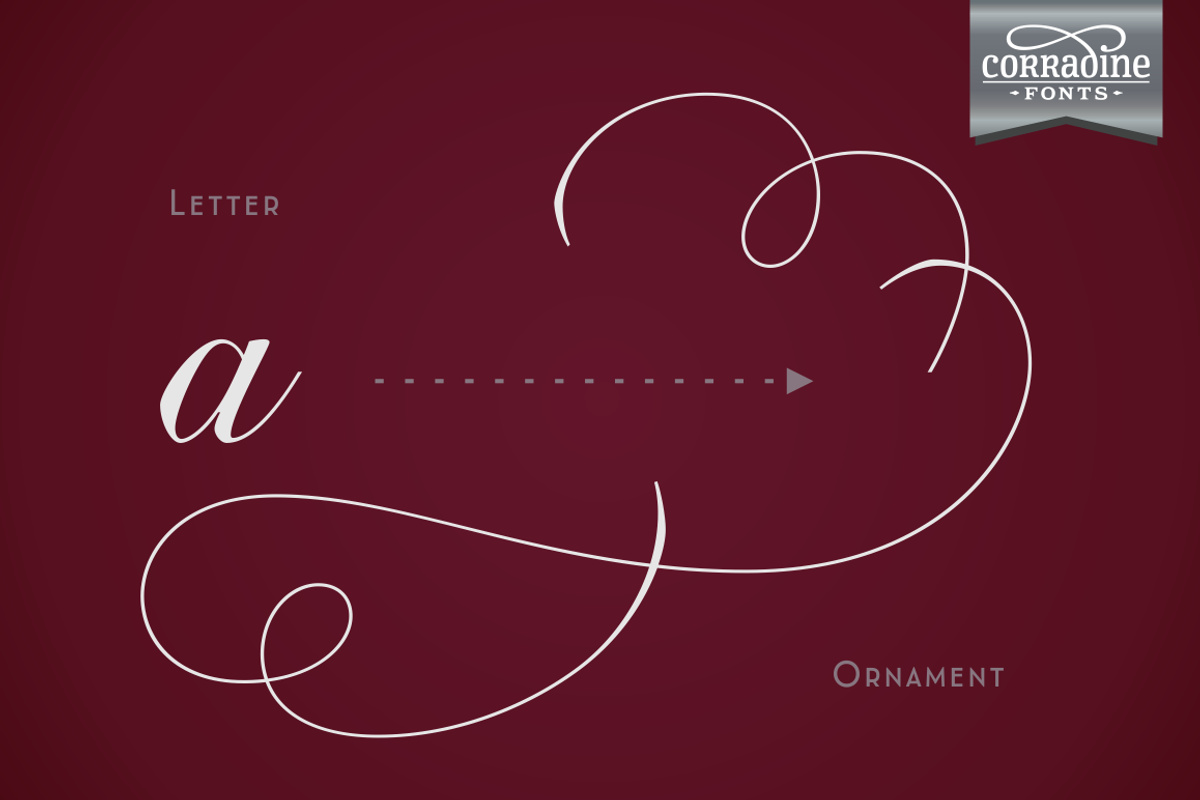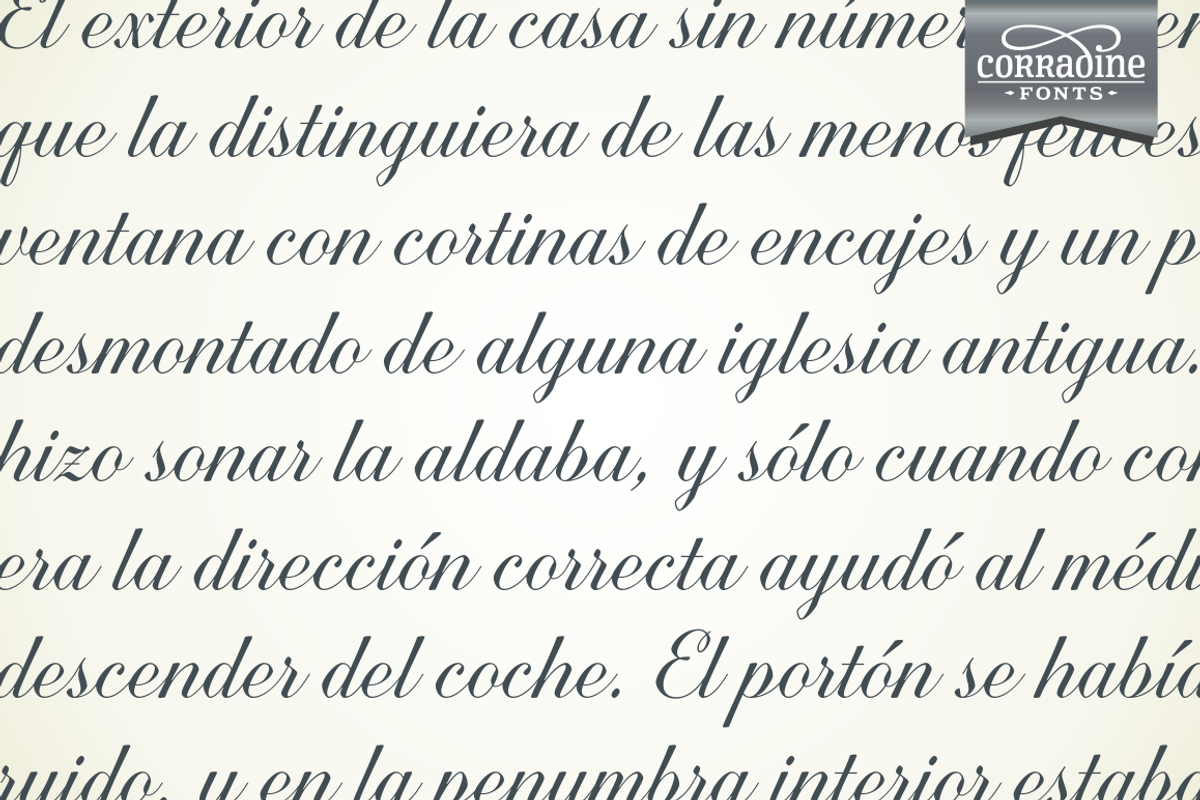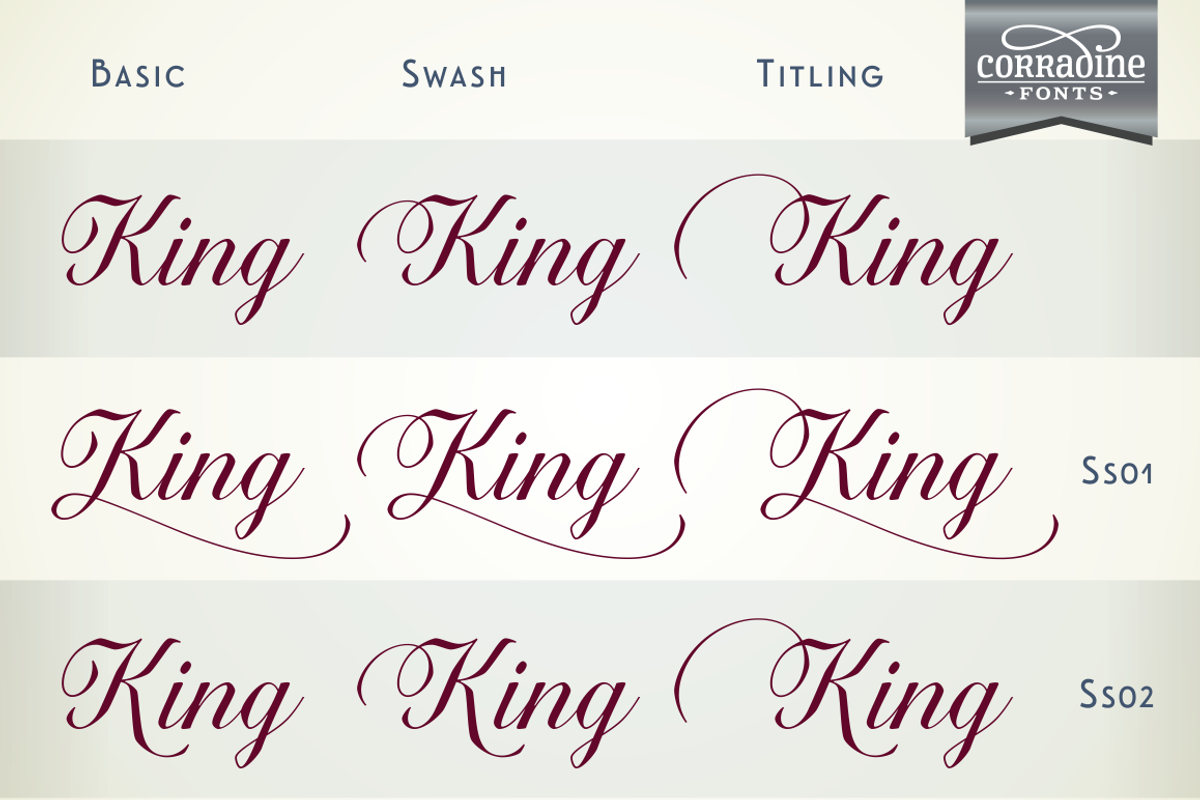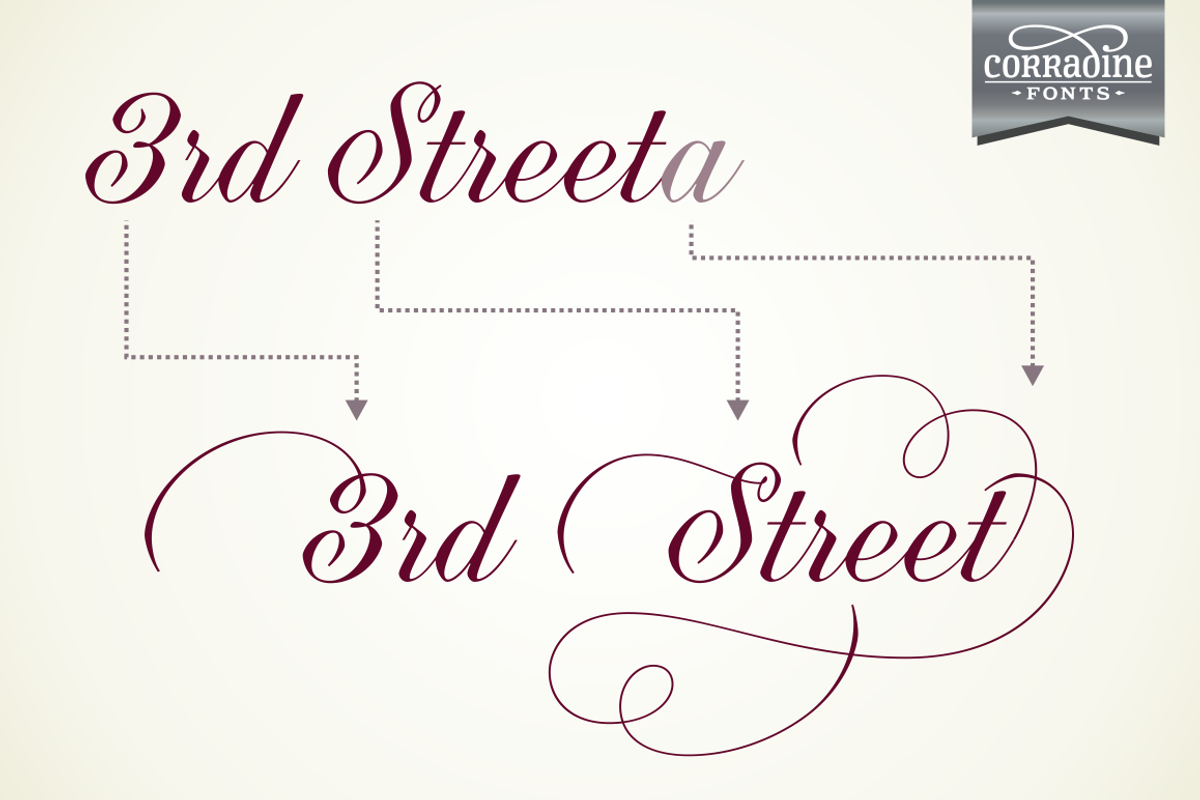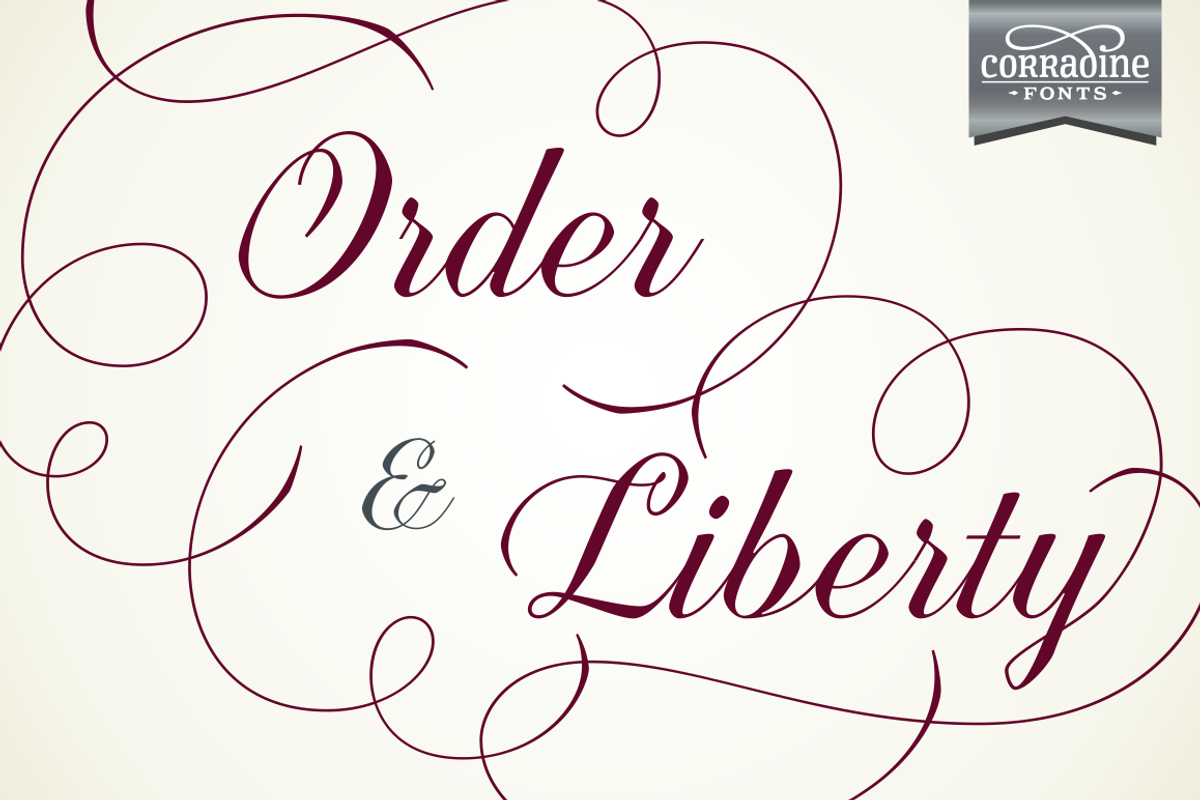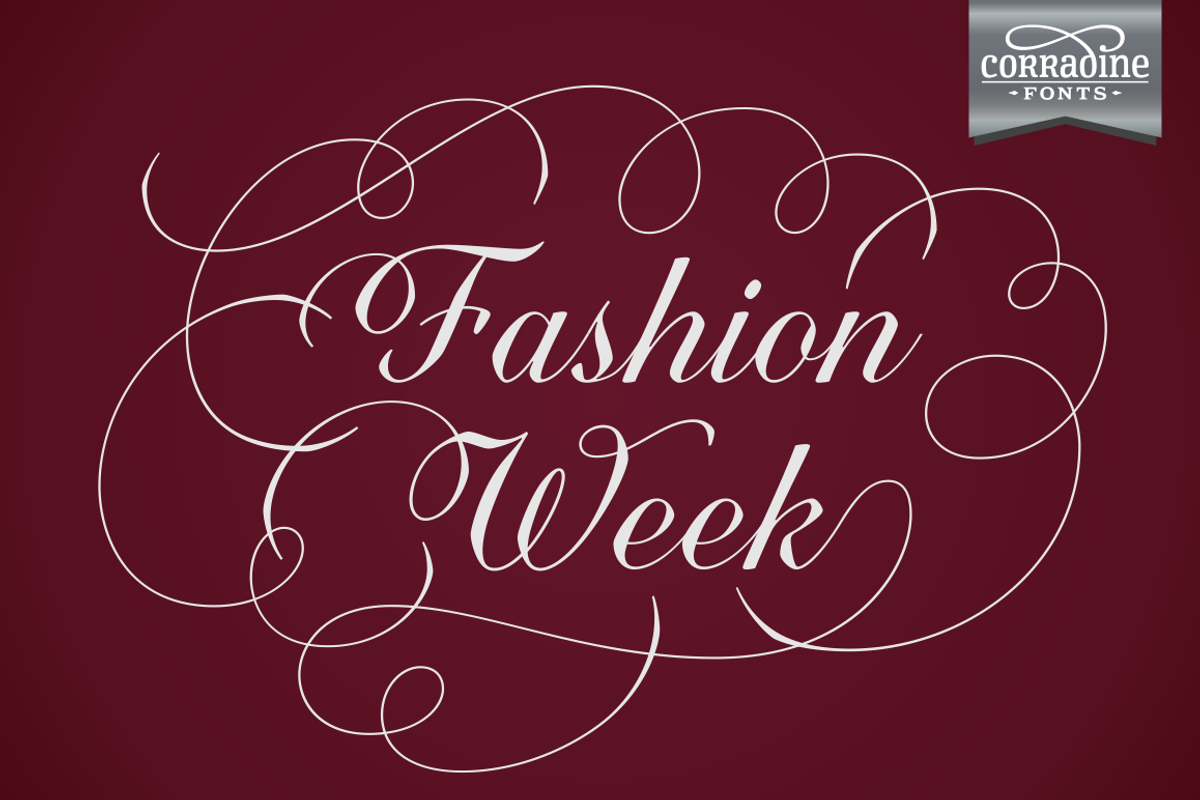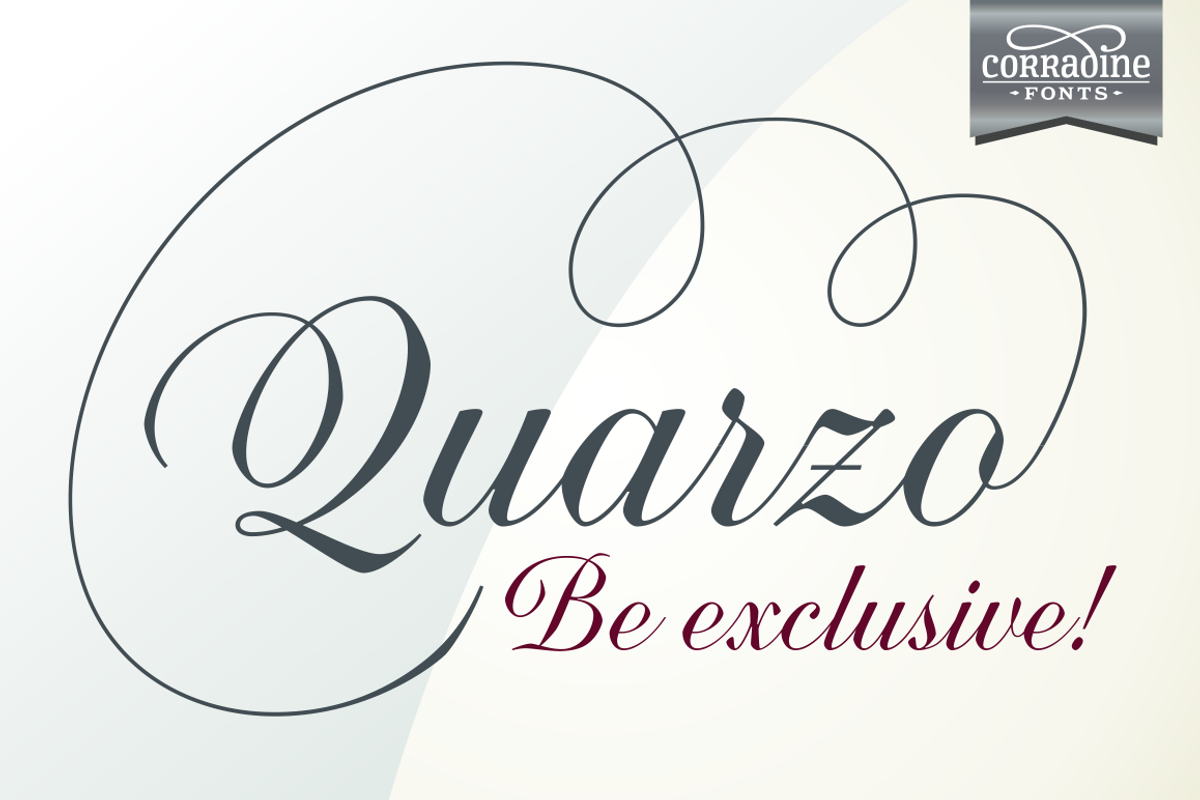
Quarzo
Quarzo by Corradine Fonts is a font selected for branding, posters, packaging, typography.
- The words can receive a dramatic touch by using the wide range of glyphs with curly and refined ornamentation.
- Also, two sets of versatile ornaments will be found: a first set of ending flourishes that match with any lowercase letter and a second set
- Its character map covers Western and Central European characters.
Why Quarzo is worth a look
Quarzo by Corradine Fonts fits naturally into Branding, posters, packaging, typography.